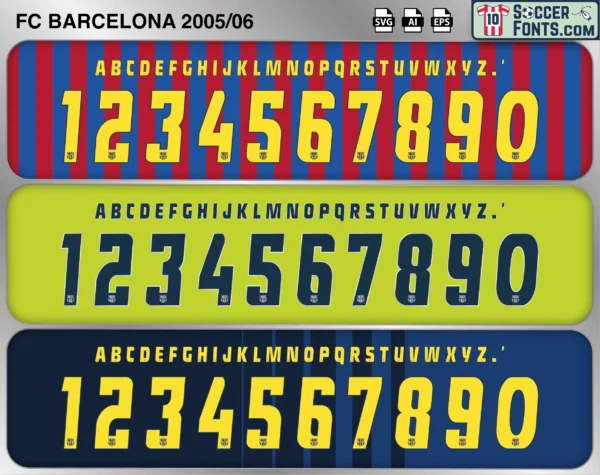
FC Barcelona 2005-06 Font
The FC Barcelona 2005-06 font is an editable soccer jersey lettering design in vector format inspired by the FC Barcelona kit style used during the 2005-06 football season. This football font artwork is prepared for football shirt recreations, custom jersey projects, football kit mockups and sports graphic design workflows.
The 2005-06 season became one of the most celebrated campaigns in FC Barcelona history as the club established itself as the leading team in European football. Managed by Frank Rijkaard, Barcelona featured a remarkable squad including Ronaldinho, Samuel Eto’o, Deco, Xavi Hernández, Carles Puyol, Andrés Iniesta and a young Lionel Messi beginning to make his impact at senior level. Barcelona successfully defended its La Liga title while playing an entertaining brand of football that earned admiration throughout the football world. Ronaldinho remained the team’s iconic figure and was widely regarded as one of the best players of his generation.
The FC Barcelona 2005-06 font became associated with Barcelona’s triumph in the UEFA Champions League, the club’s second European Cup victory. During the tournament, Barcelona overcame strong opponents including Chelsea, Benfica and AC Milan before defeating Arsenal in the final in Paris. Goals from Samuel Eto’o and Juliano Belletti secured a dramatic comeback victory that remains one of the defining moments of the club’s modern era. FC Barcelona shirts from the 2005-06 season remain highly sought after among football shirt collectors because of their connection to Champions League success, Ronaldinho’s unforgettable performances and the emergence of a team that would influence football for years to come. The FC Barcelona 2005-06 font reflects one of the most important and successful seasons in the history of the club.